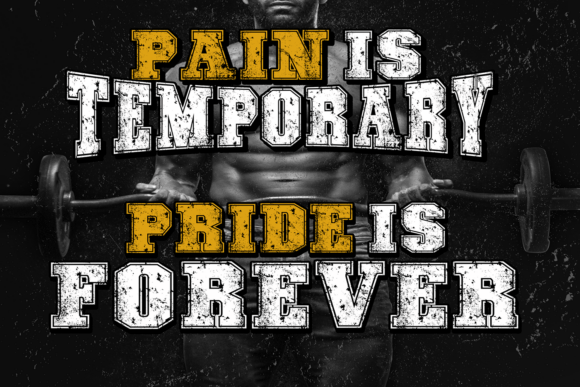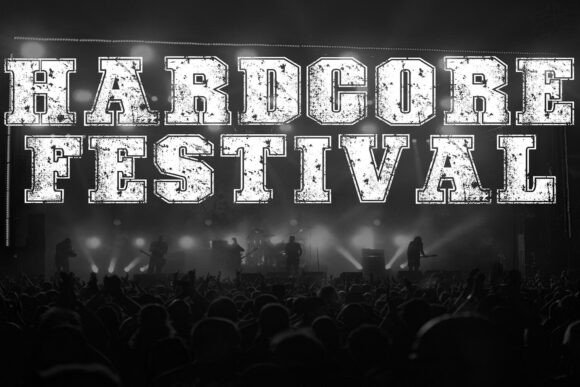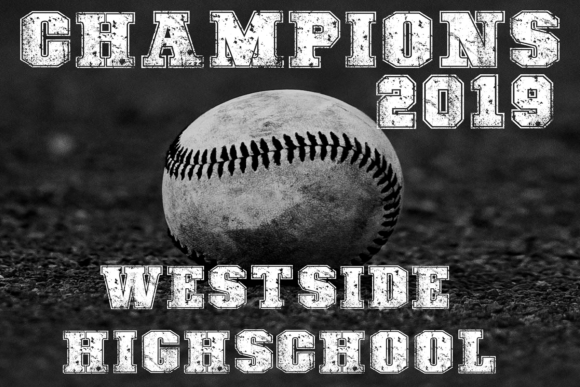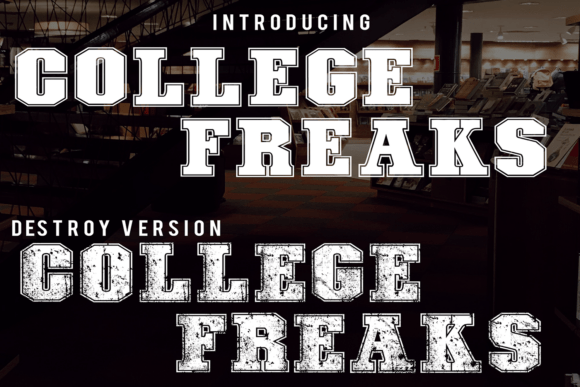
Unleash Your Creativity with College Freaks Font: A Bold Slab Serif Typeface
Are you a designer, crafty enthusiast, or simply someone who loves to experiment with typography? Look no further than the College Freaks Font, a bold slab serif typeface that’s perfect for adding a touch of rugged vintage charm to your projects. With its strong school and university flair, distressed texture, and powerful modern twist, College Freaks is the ideal font for creating eye-catching posters, sports labels, varsity jerseys, retro branding, and historical themes.
The Story Behind College Freaks Font
College Freaks Font is a carefully crafted typeface that draws inspiration from the classic typography of old-school posters, sports jerseys, and vintage branding. Its bold slab serif design gives it a sturdy, rugged feel that’s perfect for headlines, titles, and short phrases. The distressed texture adds a layer of depth and character, giving the font a worn, vintage look that’s reminiscent of aged paper or worn-out sports equipment.
Key Features of College Freaks Font
- Bold Slab Serif Design: College Freaks Font features a bold, slab serif design that’s perfect for creating eye-catching headlines and titles.
- Distressed Texture: The font’s distressed texture adds a rugged, vintage charm that’s perfect for creating retro-inspired designs.
- Strong School and University Flair: College Freaks Font is designed to evoke the spirit of school and university pride, making it perfect for sports labels, varsity jerseys, and educational branding.
- Powerful Modern Twist: Despite its vintage inspiration, College Freaks Font has a powerful modern twist that makes it perfect for contemporary designs.
Use Cases for College Freaks Font
College Freaks Font is a versatile typeface that can be used in a variety of design projects, including:
- Poster Headlines: Use College Freaks Font to create bold, eye-catching headlines for posters, flyers, and brochures.
- Sports Labels: The font’s sports-inspired design makes it perfect for creating labels and branding for sports teams, leagues, and events.
- Varsity Jerseys: College Freaks Font is a natural fit for designing varsity jerseys, sports apparel, and team gear.
- Retro Branding: Use the font to create retro-inspired branding for products, services, and companies that want to evoke a vintage feel.
- Historical Themes: College Freaks Font’s distressed texture and vintage inspiration make it perfect for historical themes, such as documentaries, museum exhibits, and historical reenactments.
Tips for Using College Freaks Font
To get the most out of College Freaks Font, here are a few tips to keep in mind:
- Use it bold and big: College Freaks Font is designed to make a statement, so don’t be afraid to use it in bold and large sizes.
- Experiment with colors: The font’s distressed texture looks great in a variety of colors, so experiment with different color schemes to find the one that works best for your design.
- Pair it with contrasting fonts: College Freaks Font works well with contrasting fonts, such as sleek sans-serifs or elegant scripts.
College Freaks Font is a bold, versatile typeface that’s perfect for designers, crafty enthusiasts, and anyone who loves to experiment with typography. With its strong school and university flair, distressed texture, and powerful modern twist, it’s the ideal font for creating eye-catching posters, sports labels, varsity jerseys, retro branding, and historical themes. So why wait? Download College Freaks Font today and unleash your creativity!